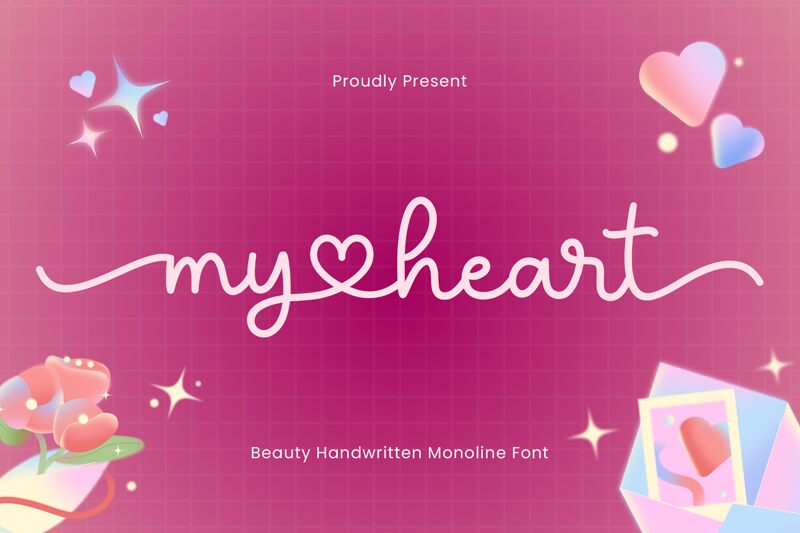
My Heart font family by Mozatype is a romantic script font that perfectly captures the feeling of playful love staples marking February 14th. It channels this spirit into characters with connecting lines that stretch between the typed words. This unique font family has a modern look and feel achieved by using the monoline technique. The informal and quirky look aims to reflect an approachable character.
My Heart, as the name indicates, is made to be used with romantic designs, such as Valentine's day greeting cards. This elegant typeface is nonetheless quite flexible and can be used in fashion or cosmetic branding, product packaging, and flyers. It is also suitable for use in children’s-oriented branding designs, and event or celebratory invitations.